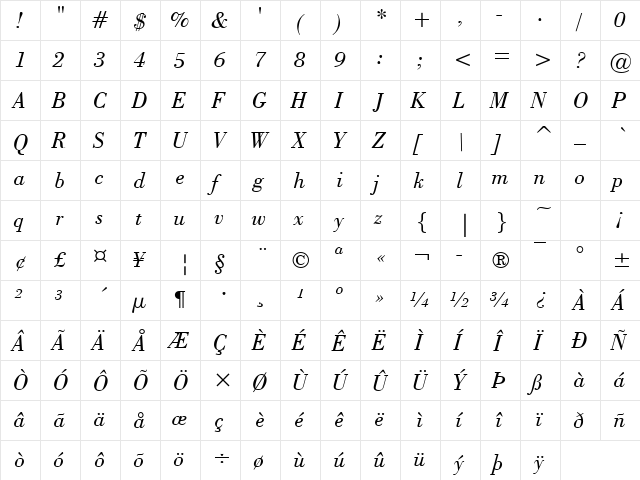
Marque Italic Font Preview
Marque Italic
Design Context for Marque Typeface
Marque is a composed and adaptable typeface that performs quietly and consistently across a wide range of design contexts. The slanted form adds forward momentum and visual energy.
Pro Tip: Try Marque for annotation and caption copy alongside an upright companion — the contrast in angle creates a dynamic but ordered typographic system.